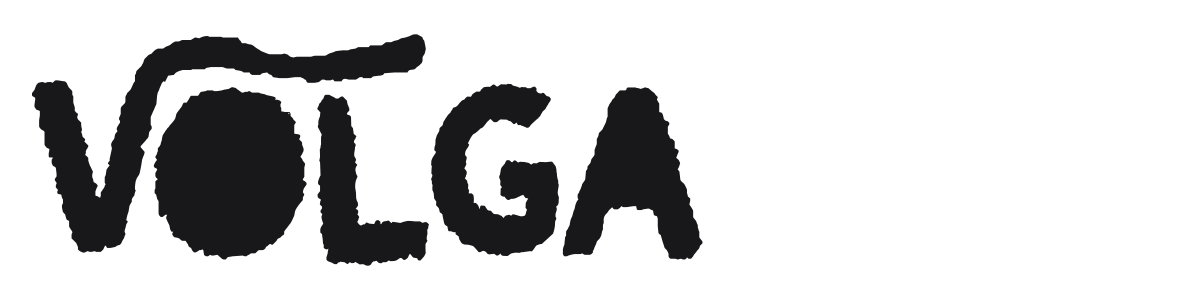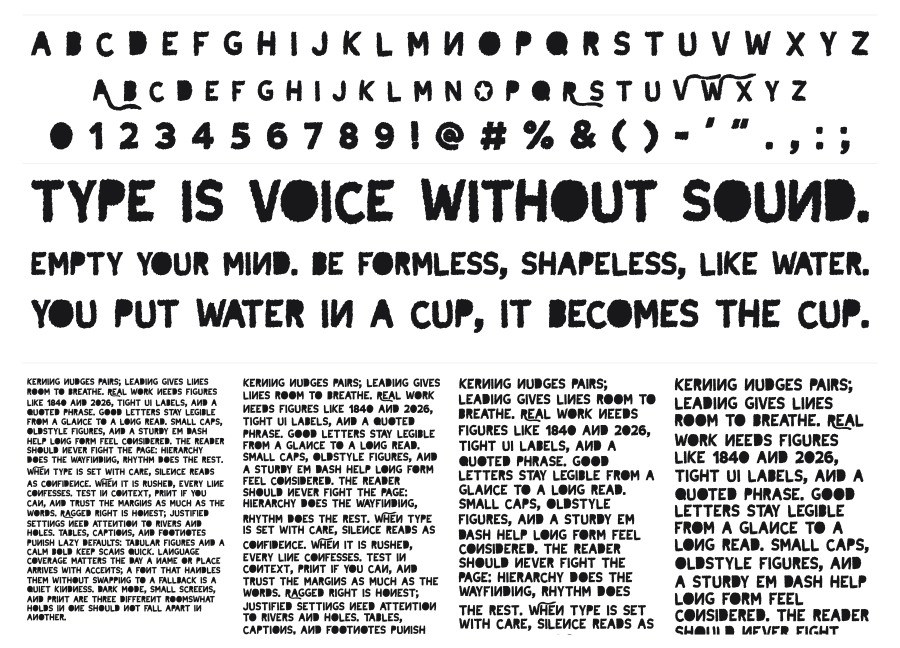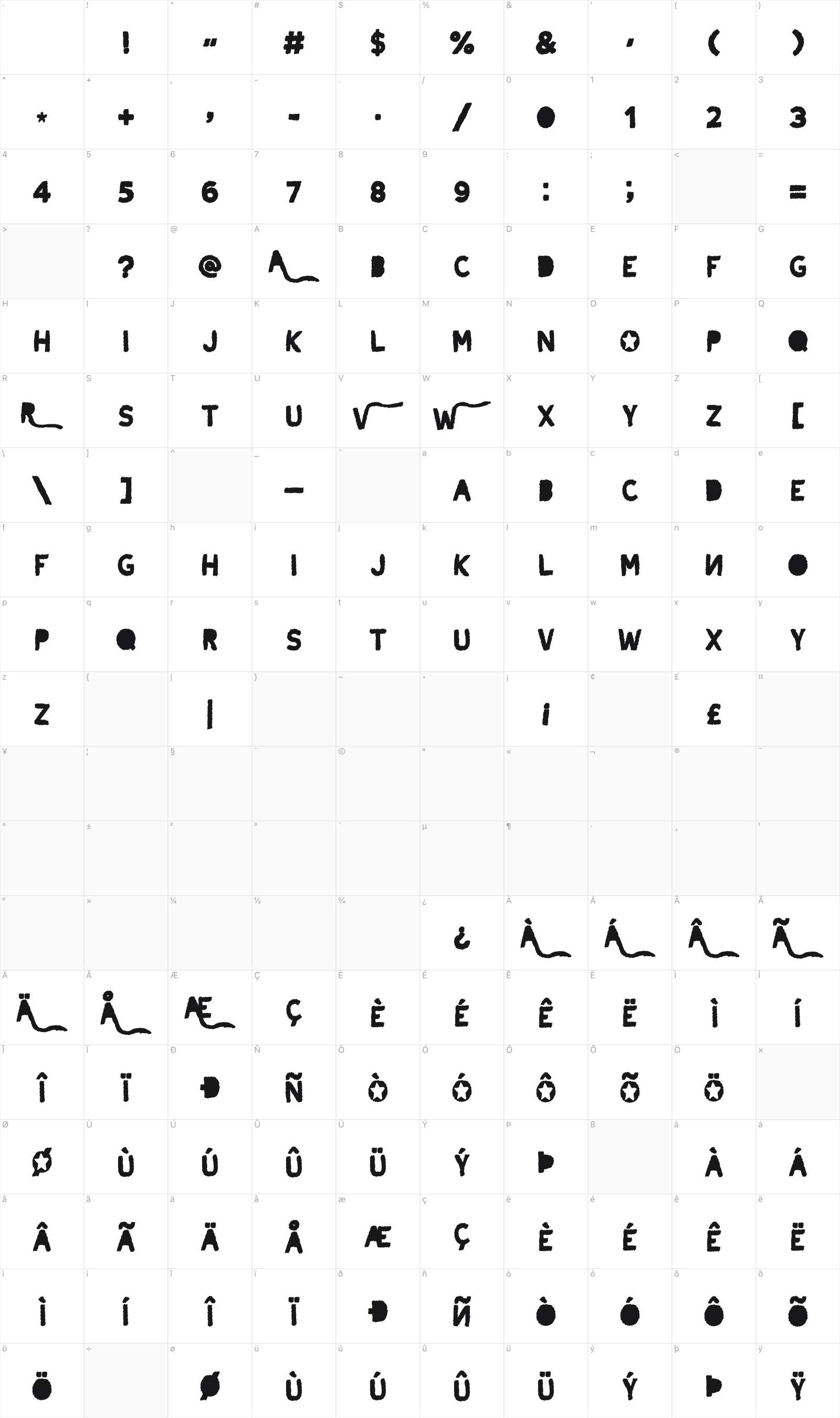
Volga
by Frederic
Volga is a bold eroded display font with a heavily distressed texture that makes every character look stamped, worn, or eaten by acid. The thick sans-serif construction keeps it readable at large sizes, while the rough surface gives it genuine grit. Strong in posters, album art, and anywhere a clean font would feel too safe.